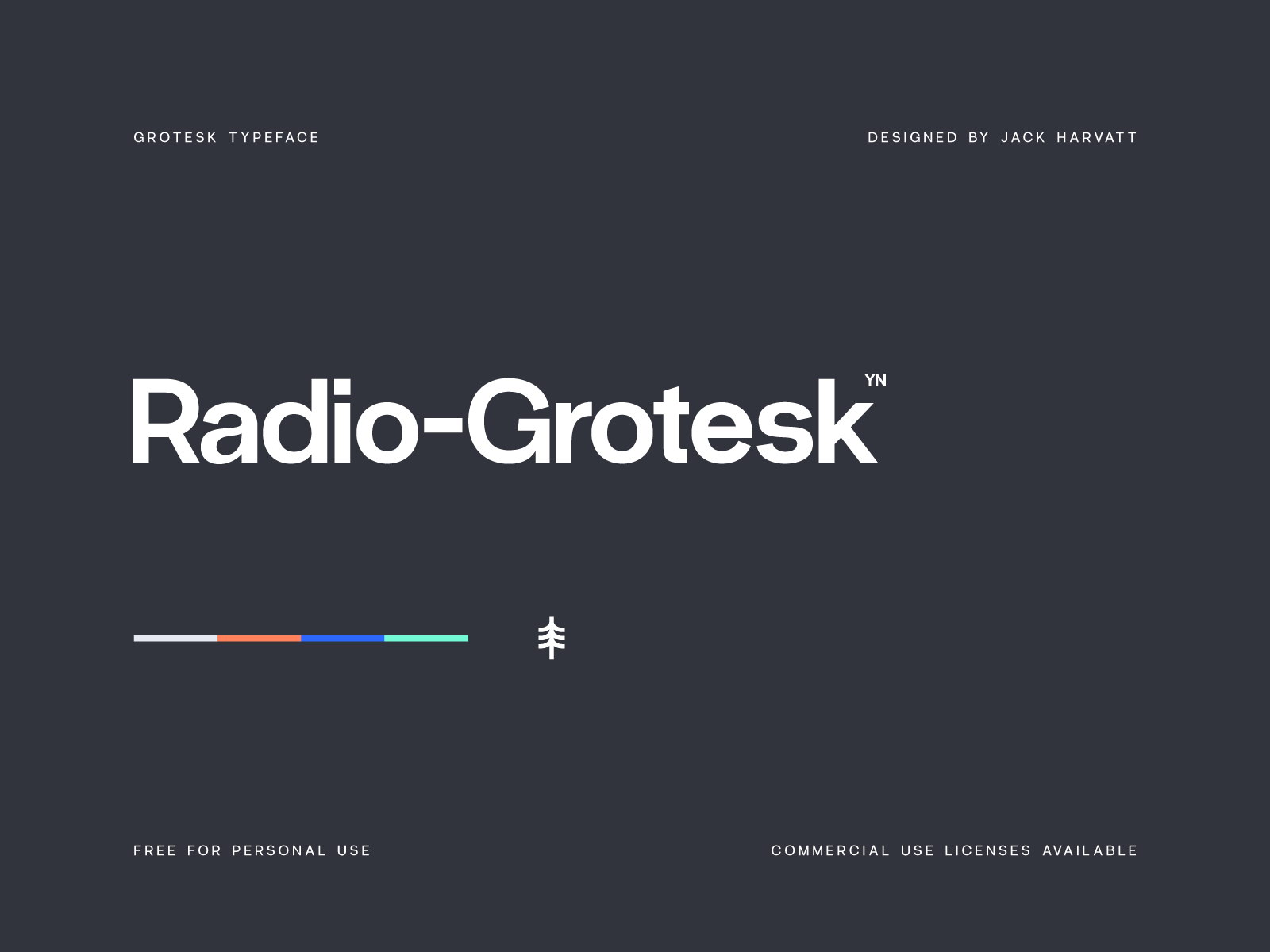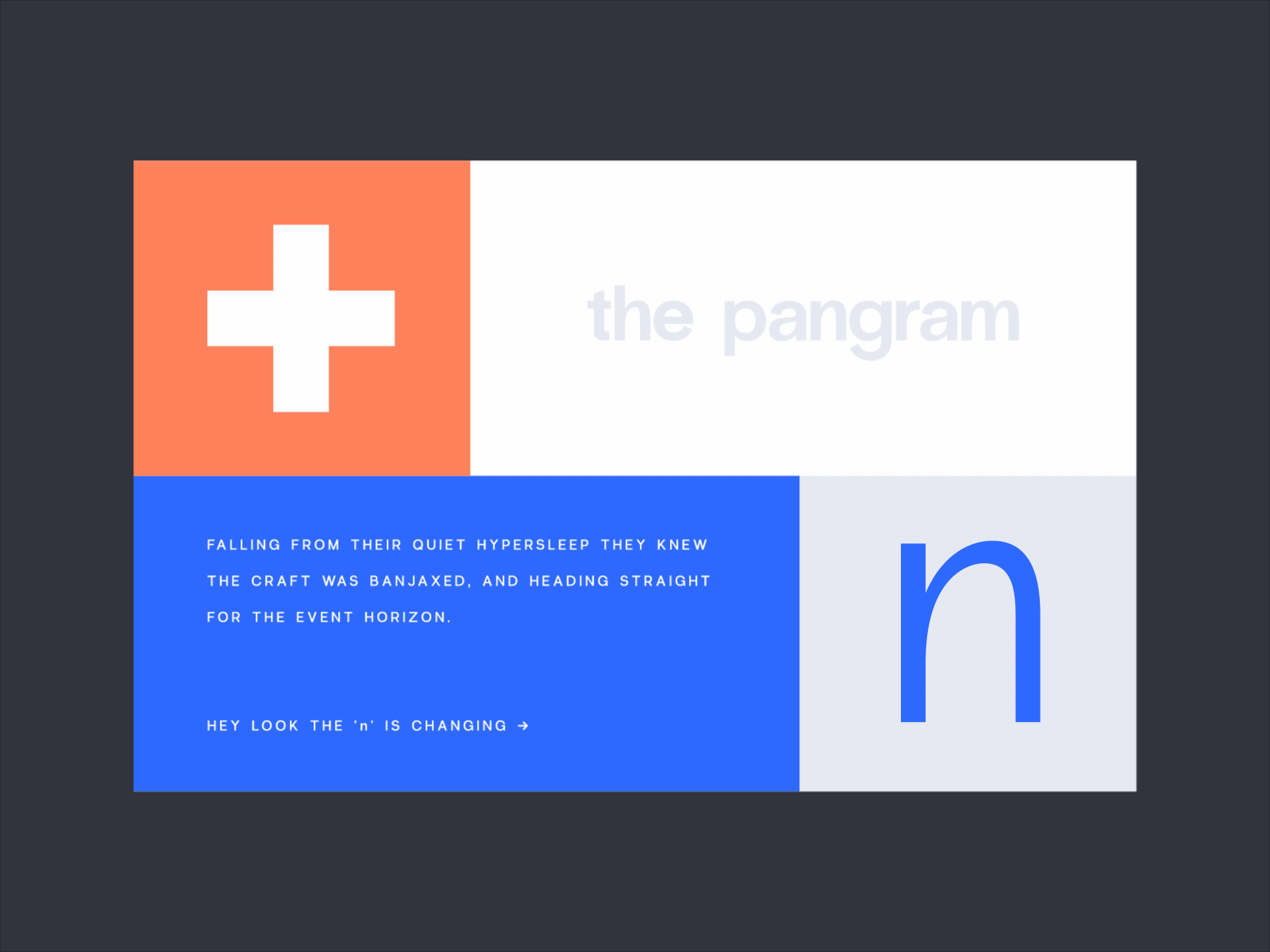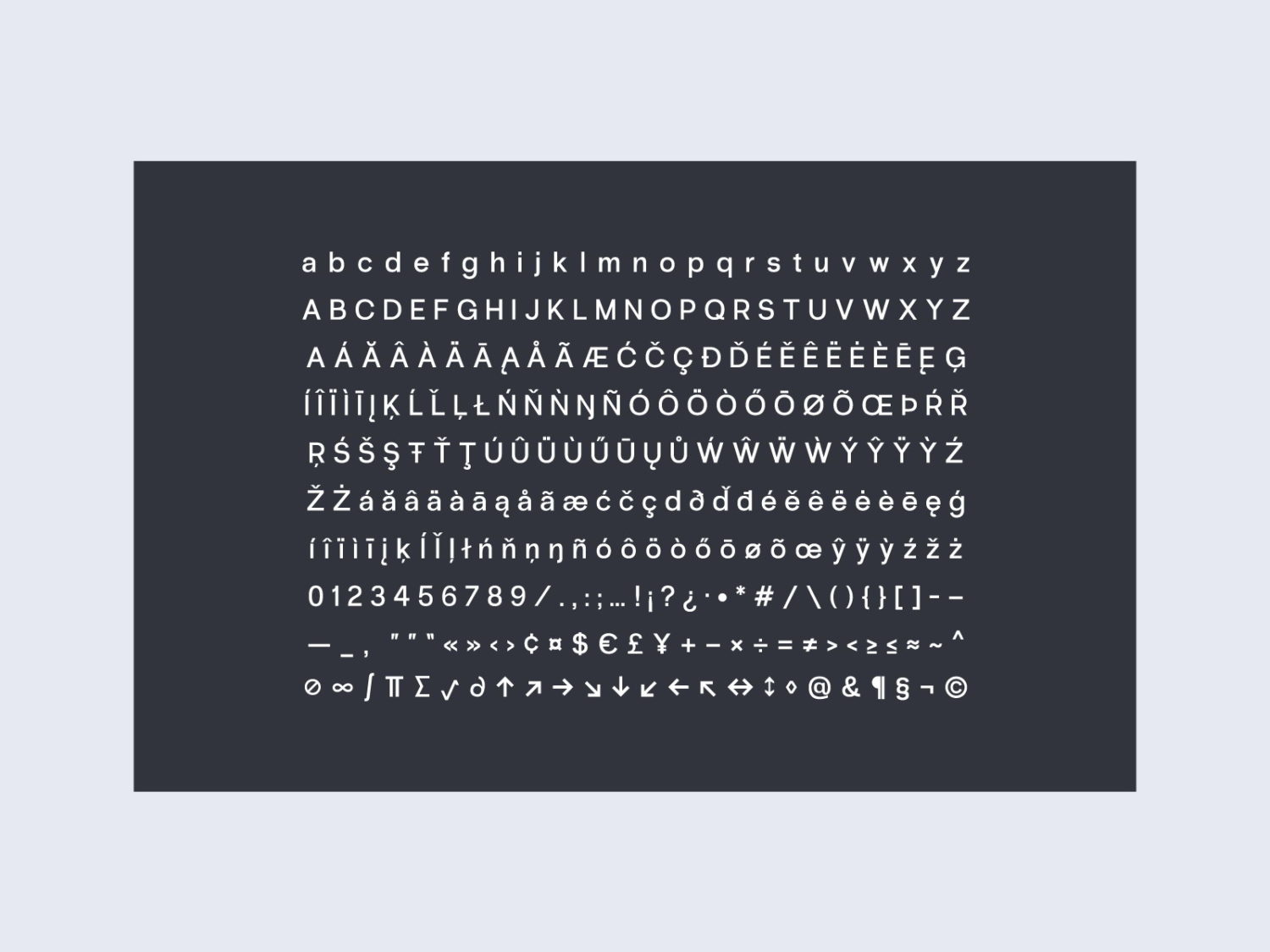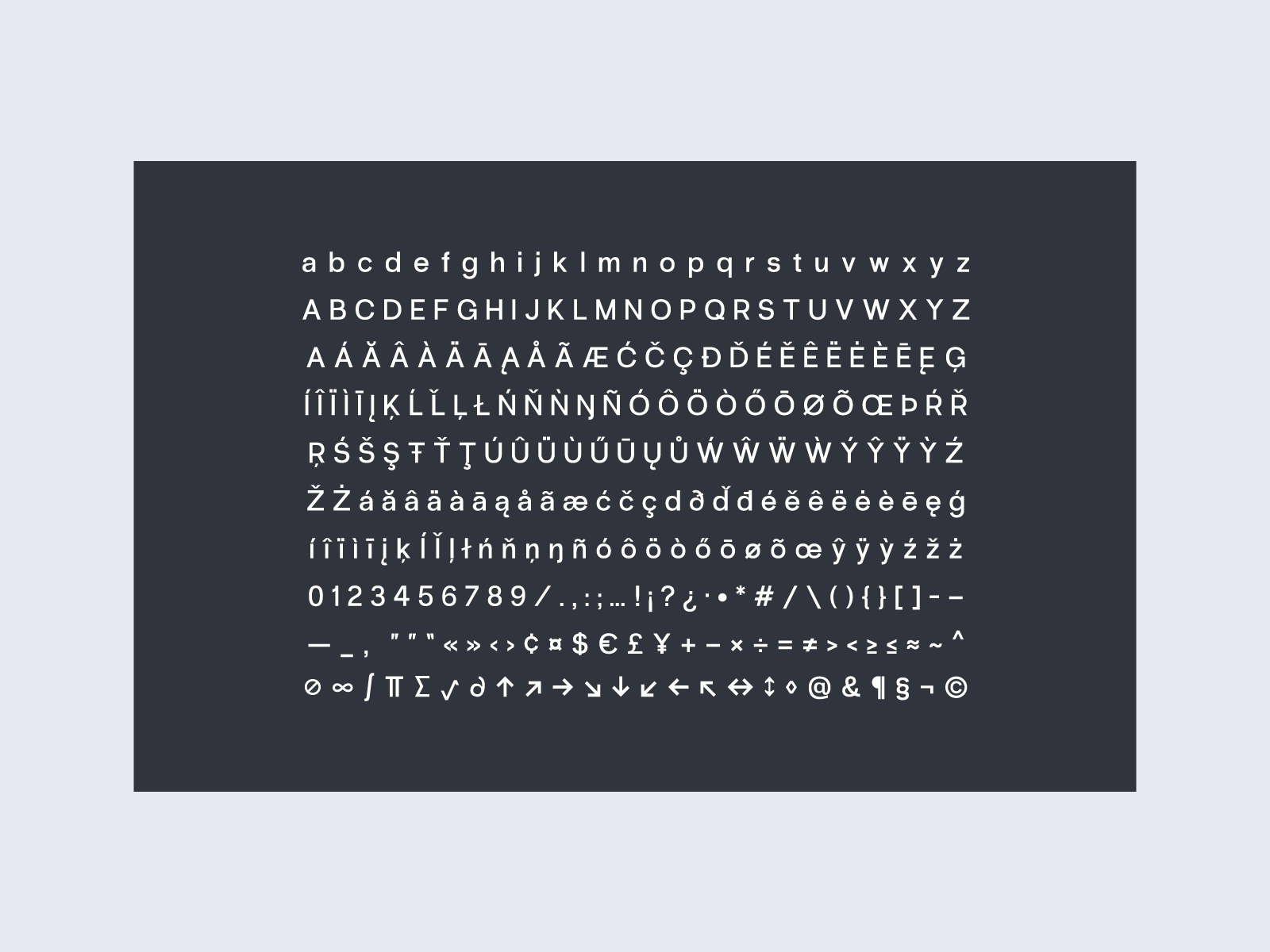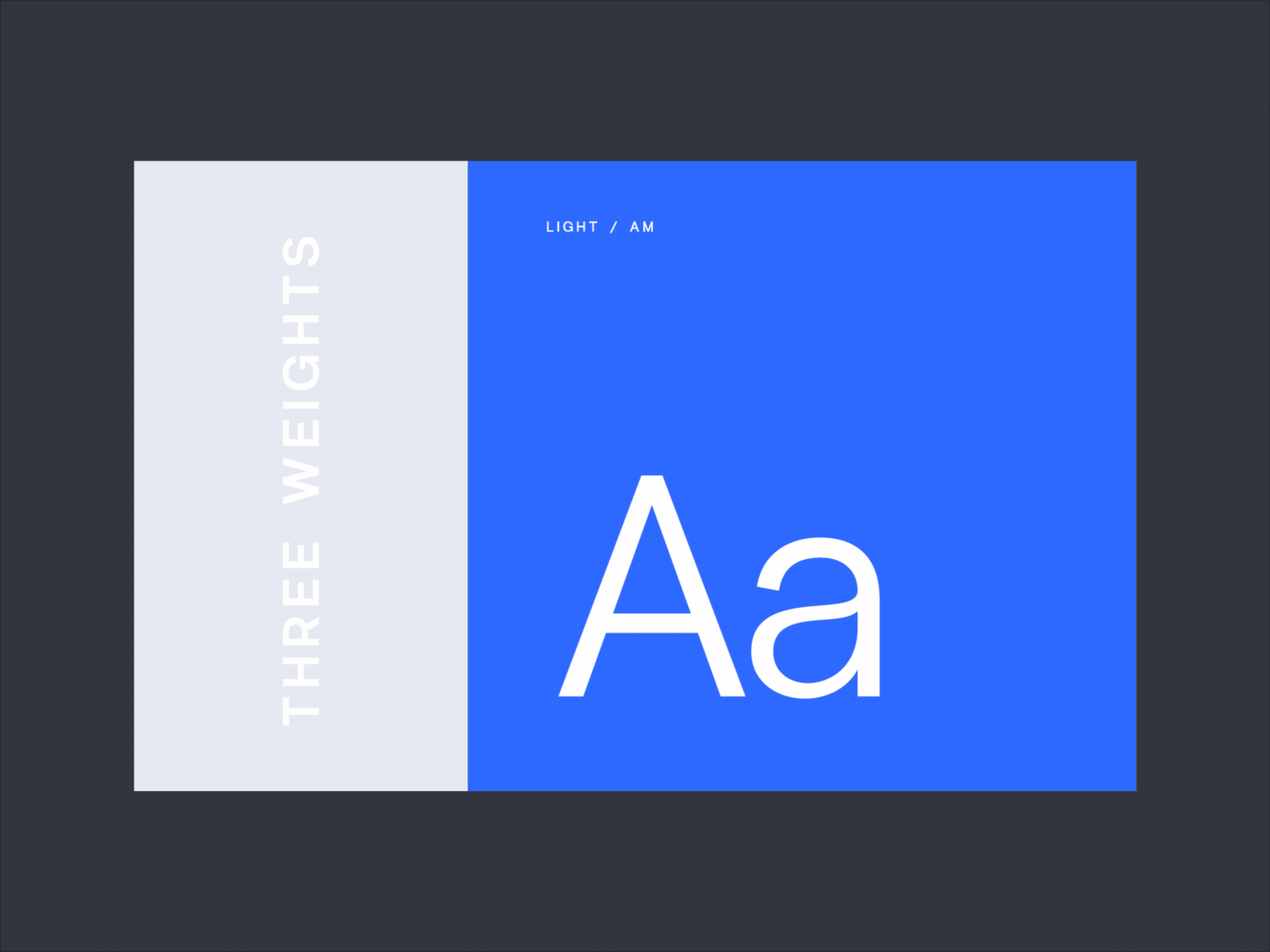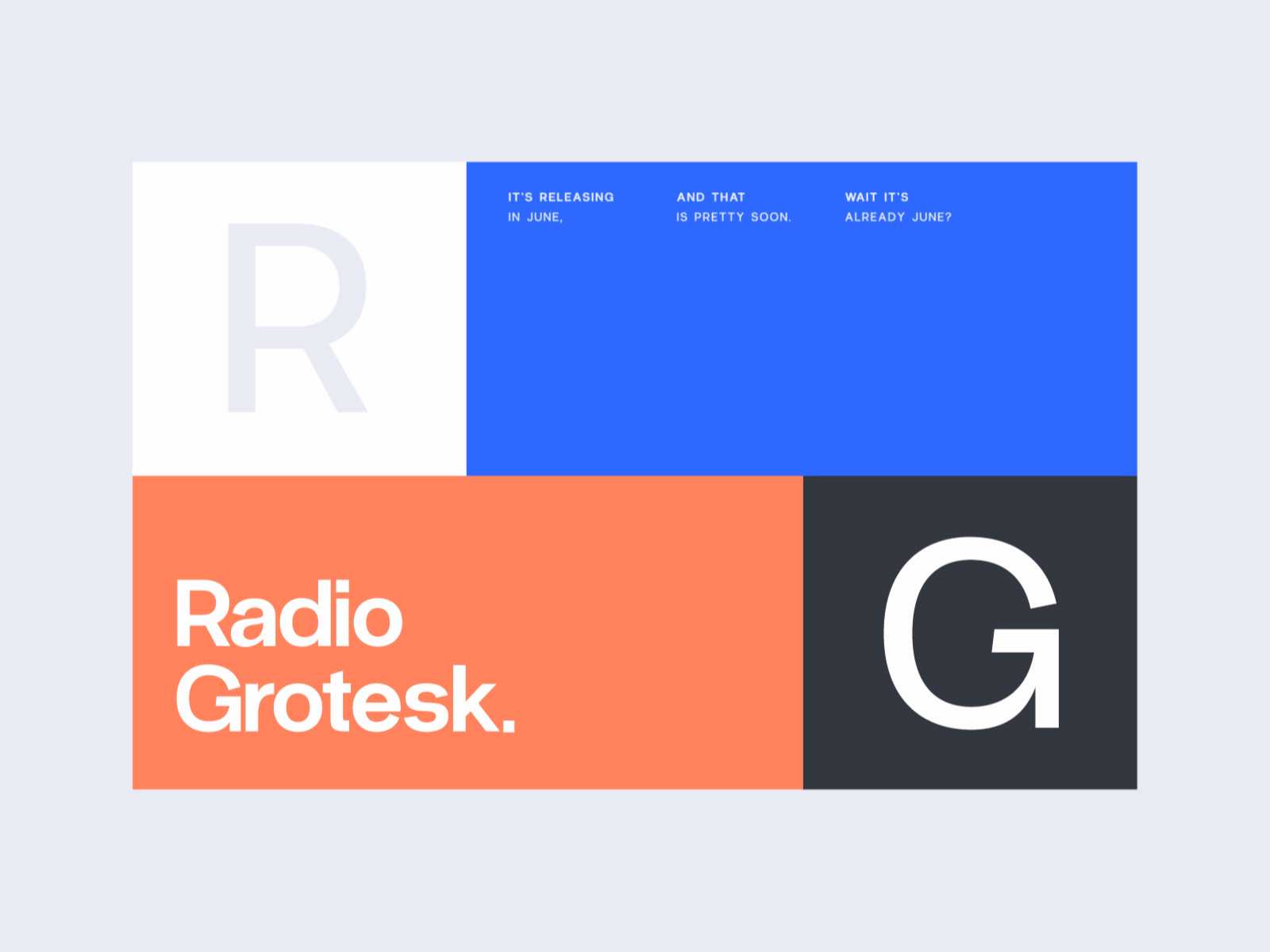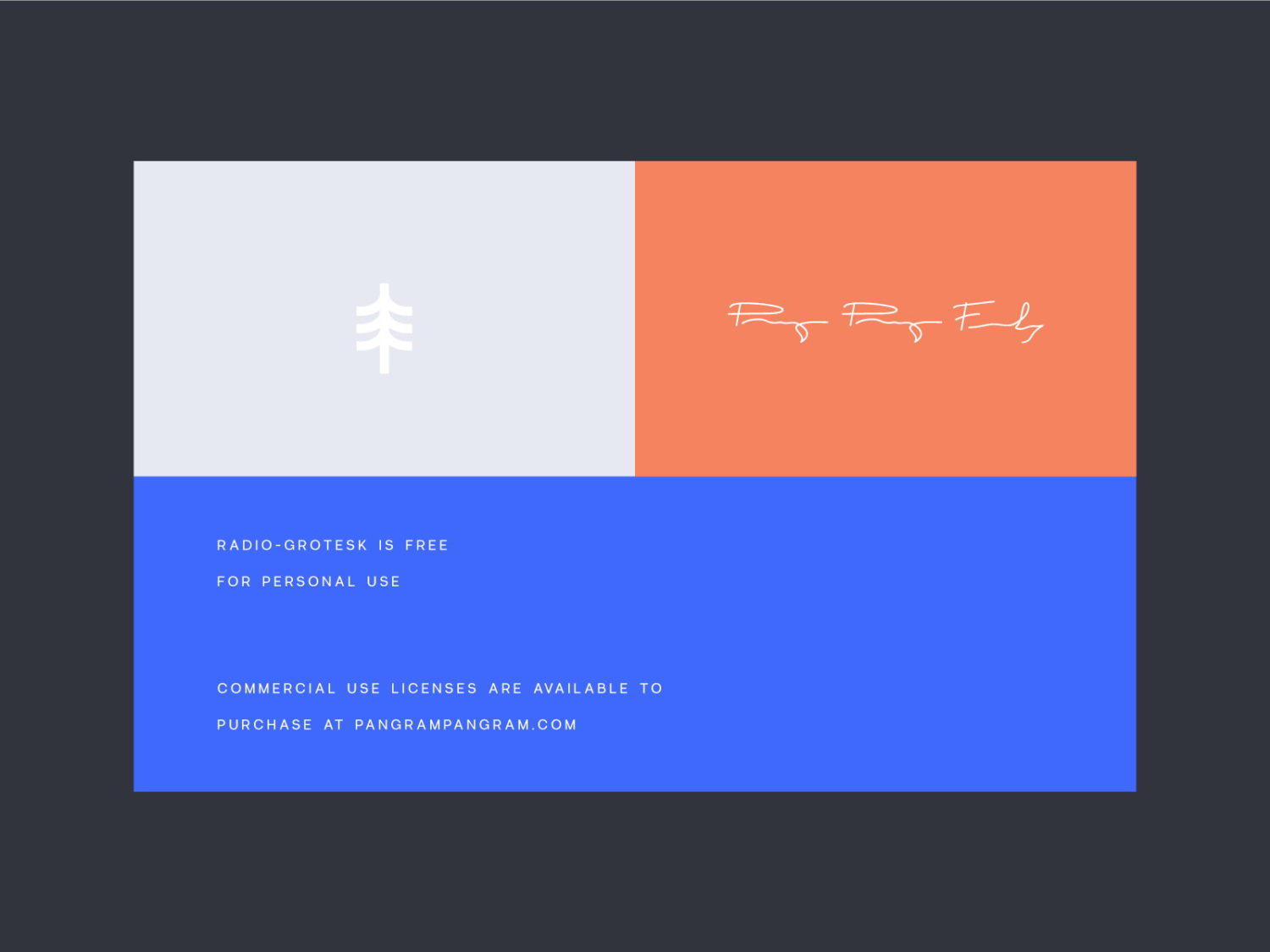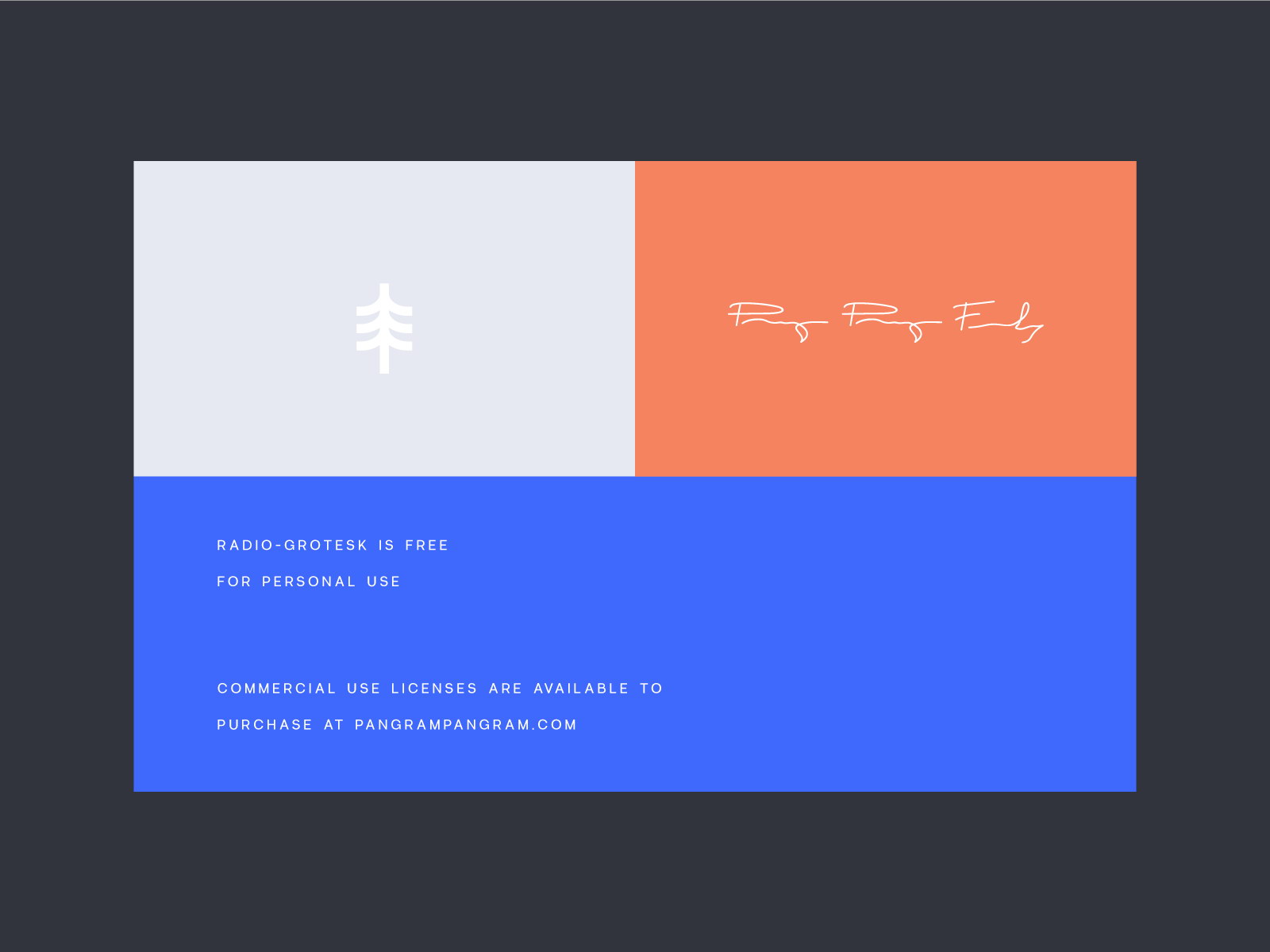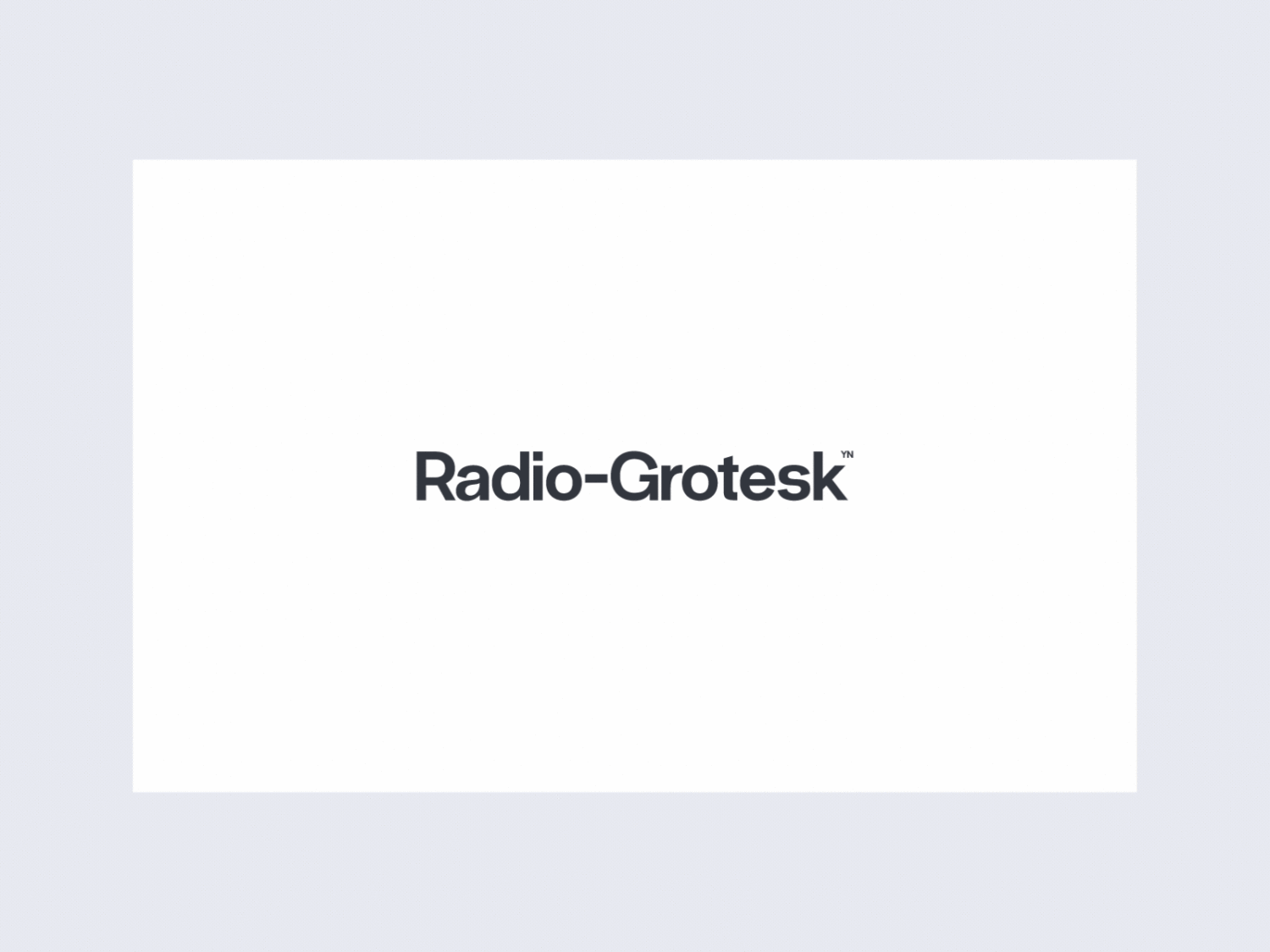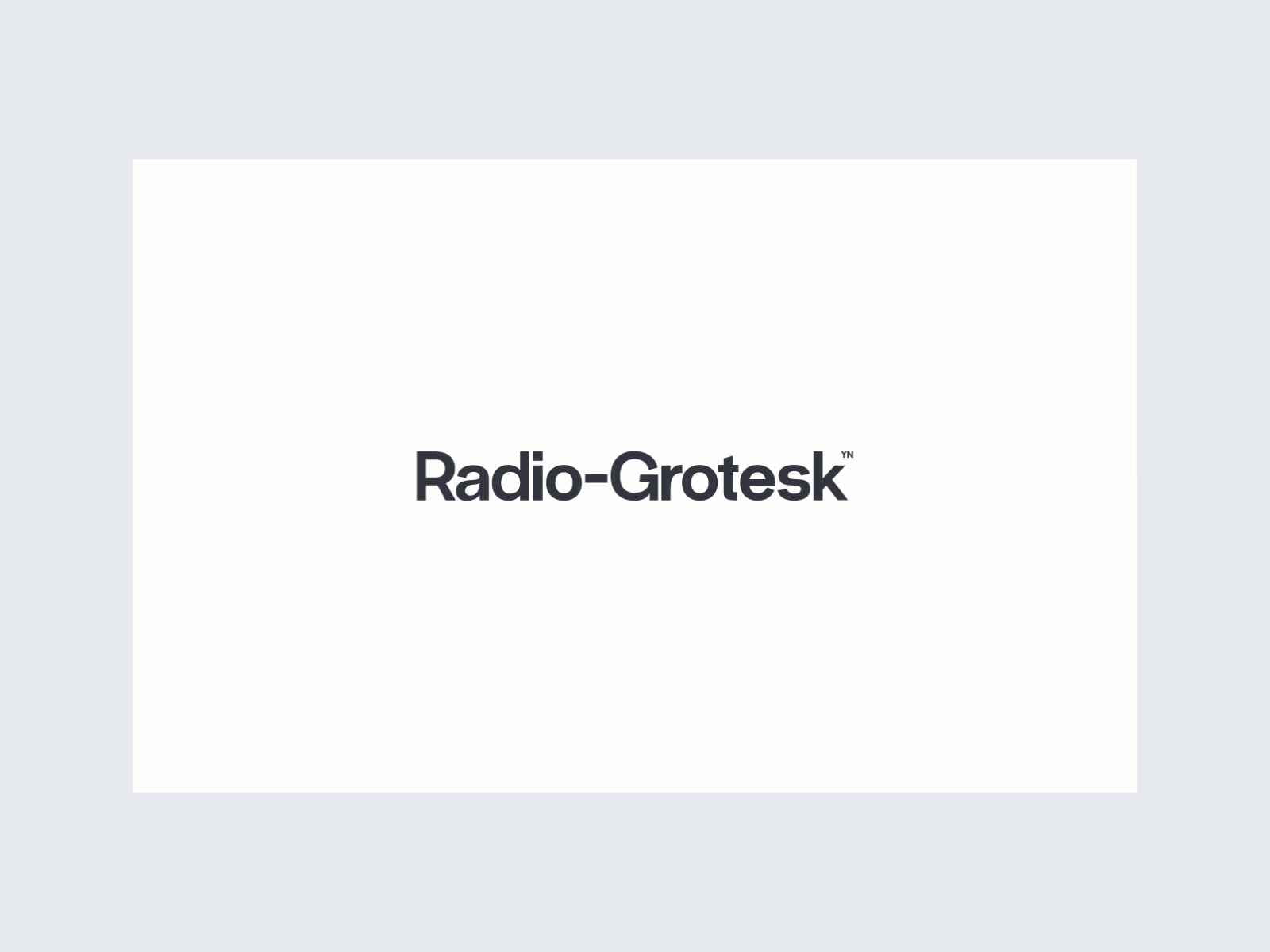
Radio-Grotesk Free Font
With established majuscules and sophisticated minuscules – Radio Grotesk brings contemporary characteristics to a classic typestyle. The three weights allow Radio Grotesk to be effortlessly adaptable to any project.